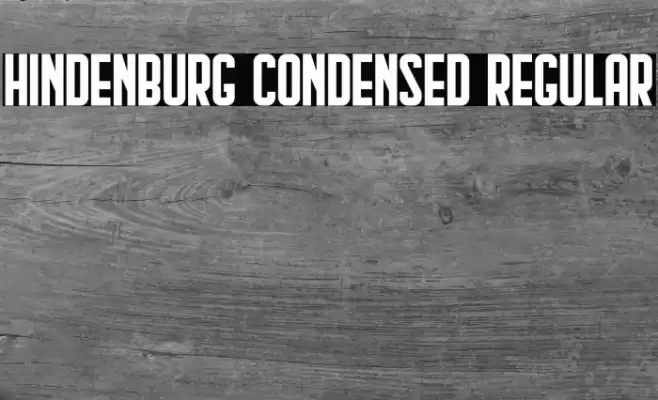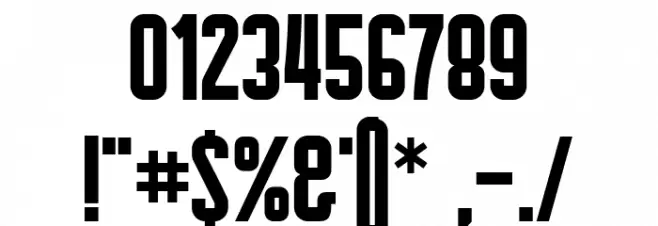
Hindenburg Condensed Regular Font
Hindenburg Condensed Regular Description
This font features a bold and condensed style with strong geometric shapes and clean lines. The uppercase letters are uniform in height, creating a cohesive and structured appearance. The numerals are equally bold, maintaining the font's overall impact. Special characters are designed to match the assertive style, ensuring consistency across all glyphs. The font's condensed nature allows for efficient use of space, making it ideal for headlines and titles where impact is essential. Its modern and assertive design makes it suitable for projects that require a strong visual presence.
A bold, condensed font with geometric shapes and clean lines, ideal for impactful headlines from Uncategorized fonts.
- Proposed Projects: Perfect for branding, advertising, posters, and any design requiring a strong, modern look.
- Character Spacing: Tight